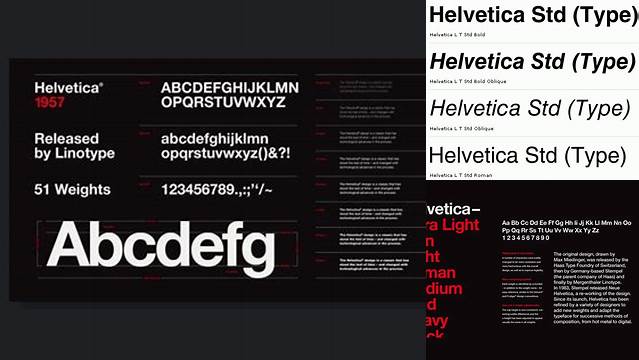
Hey guys! Are you looking for the perfect font to elevate your design projects? Look no further! In this comprehensive guide, we're diving deep into the world of Helvetica, one of the most iconic and beloved font families in the history of typography. We'll explore its origins, its unique characteristics, its widespread usage, and, most importantly, how you can get your hands on it for free! Whether you're a seasoned designer or just starting out, understanding Helvetica is crucial. This versatile font has been a staple in the design world for decades, and for good reason. Its clean lines, legibility, and timeless appeal make it suitable for a wide range of applications, from branding and advertising to web design and print media. So, buckle up and get ready to explore the fascinating story of Helvetica and discover how you can incorporate this legendary font into your own projects.
The History and Evolution of Helvetica
Let's take a trip back in time to the late 1950s, when Helvetica was born. Created by Swiss typeface designer Max Miedinger in 1957, Helvetica, originally named Neue Haas Grotesk, was designed to be a neutral, clear, and highly legible font. It was intended to be a modern sans-serif typeface that could compete with other popular fonts of the time, such as Akzidenz-Grotesk. The Haas Type Foundry in Switzerland commissioned the font, and it quickly gained popularity for its clean and simple design. In 1960, the font was renamed Helvetica, derived from the Latin name for Switzerland, Helvetia. This rebranding marked a turning point, as Helvetica began its ascent to becoming a global phenomenon. Over the years, Helvetica has undergone several revisions and expansions. Different weights and styles were added to the family, including bold, italic, and condensed versions, making it even more versatile. One notable adaptation is Neue Helvetica, a redrawn version released in 1983, which further refined the font's design and expanded its character set. The evolution of Helvetica is a testament to its enduring appeal and adaptability. Its designers understood the importance of creating a font that could stand the test of time, and they succeeded in producing a masterpiece that continues to influence the design world today. The font's neutrality is one of its greatest strengths. It doesn't impose a particular mood or style, allowing the message to take center stage. This makes it an ideal choice for projects where clarity and readability are paramount.
Key Characteristics of the Helvetica Font Family
So, what exactly makes Helvetica so special? Let's break down the key characteristics that define this iconic font. First and foremost, Helvetica is a sans-serif font, meaning it lacks the small decorative strokes (serifs) found in other font types like Times New Roman. This gives it a clean, modern appearance. The absence of serifs contributes to Helvetica's legibility, particularly in smaller sizes and on digital screens. The geometric shapes and even strokes are another defining characteristic. The letters are precisely crafted with consistent stroke widths, creating a sense of balance and harmony. This uniformity contributes to the font's overall clarity and readability. Another important aspect of Helvetica is its neutral design. It doesn't have any strong personality or stylistic quirks that might distract from the message. This neutrality makes it incredibly versatile, as it can be used in a wide range of design contexts without clashing with other elements. The x-height, which is the height of the lowercase letters relative to the uppercase letters, is also significant. Helvetica has a relatively large x-height, which enhances its legibility, especially in body text. The spacing between letters and words is carefully considered in Helvetica, ensuring that the text is easy to read and doesn't feel too cramped or too sparse. This attention to detail is one of the reasons why Helvetica is so highly regarded by typographers and designers. In summary, Helvetica's key characteristics include its sans-serif design, geometric shapes, even strokes, neutral appearance, large x-height, and consistent spacing. These elements combine to create a font that is both aesthetically pleasing and highly functional.
Widespread Usage of Helvetica in Design and Branding
Helvetica's popularity isn't just a matter of chance; it's a result of its exceptional design and versatility. This font has found its way into countless logos, websites, and print materials across various industries. From corporate branding to editorial design, Helvetica has proven its worth as a reliable and effective typeface. Many major corporations have adopted Helvetica as their primary font for branding. Brands like BMW, American Airlines, and Panasonic use Helvetica in their logos and marketing materials, leveraging its clean and modern aesthetic to convey a sense of professionalism and trustworthiness. The font's neutrality allows these brands to communicate their messages clearly and effectively, without any distractions from the typeface itself. In the world of web design, Helvetica is a go-to choice for its readability and adaptability. It renders well on screens of all sizes and resolutions, making it an ideal font for websites and digital interfaces. Its clean lines and clear letterforms ensure that text is easy to read, even at small sizes. Editorial design also benefits greatly from Helvetica's versatility. Magazines, newspapers, and books often use Helvetica for body text and headlines, taking advantage of its legibility and neutral tone. The font doesn't compete with the content; instead, it enhances the reading experience by presenting the text in a clear and unobtrusive manner. Signage and wayfinding systems frequently employ Helvetica due to its clarity and ease of recognition. Airports, train stations, and other public spaces use Helvetica to guide people, ensuring that information is conveyed quickly and effectively. The font's simple and straightforward design makes it ideal for these applications, where legibility is paramount. Helvetica's widespread usage is a testament to its timeless appeal and functionality. It's a font that has proven its ability to adapt to different design needs and contexts, making it a favorite among designers worldwide.